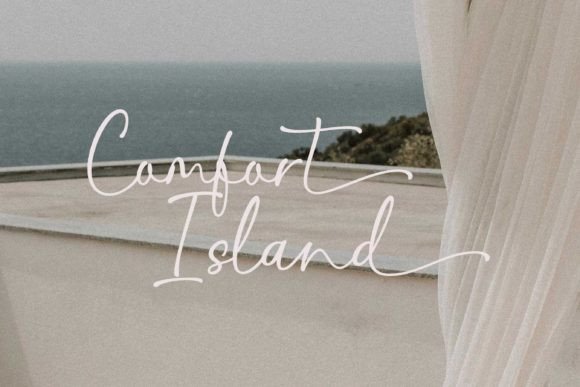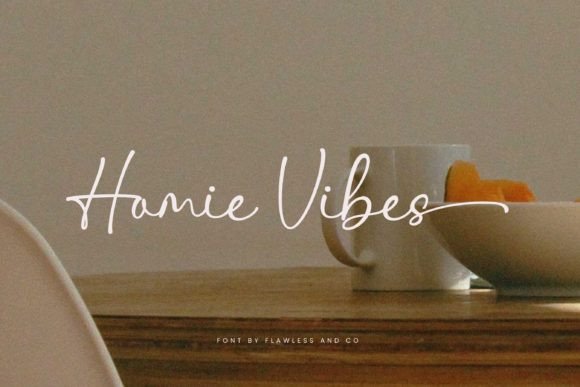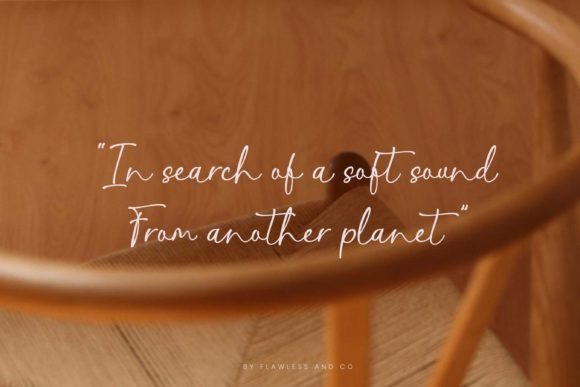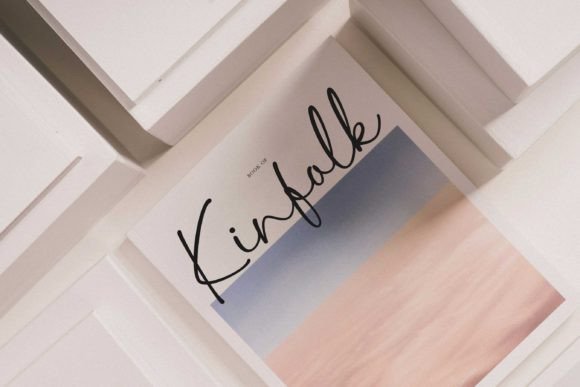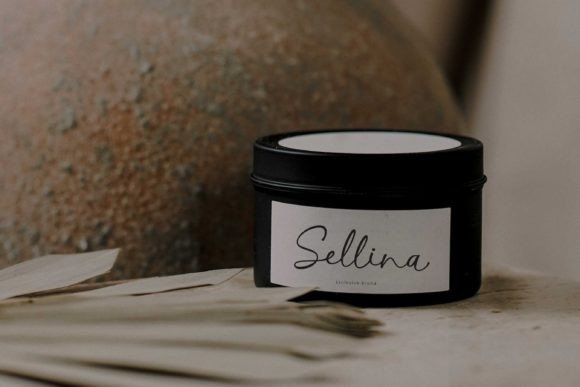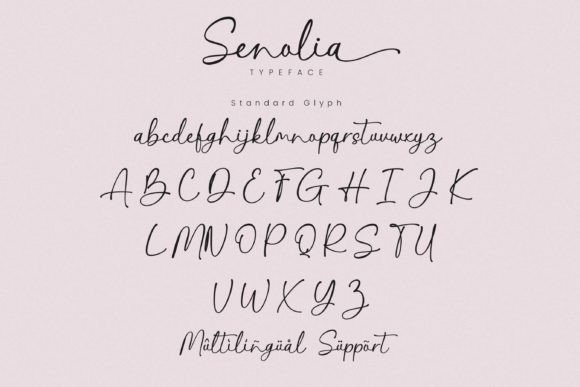
Introduction to Senolia Font
As a designer, there’s nothing quite like the thrill of discovering a new font that sparks creativity and inspires your next project. For me, that moment came when I stumbled upon the exquisite Senolia Font, a stunning calligraphy script that has since become a trusted design resource.
Whether you’re working on a high-end wedding invitation, a luxury branding project, or a creative endeavor that demands elegance and sophistication, Senolia Font is the perfect choice. Its intricate details and precise strokes evoke the artistry of handwritten elegance, making it a valuable asset for any designer looking to elevate their work.
Key Features of Senolia Font
- High-quality typography with a wide range of glyphs and characters, making it ideal for creative projects.
- Features a transparent background, allowing for seamless integration with any design or creative project.
- Includes a comprehensive character set, with over 2000 glyphs, supporting multiple languages and scripts.
- Designed to be highly legible at various resolutions, from 72 dpi to 300 dpi, making it suitable for both digital and print projects.
- Available in multiple font sizes, ranging from 8pt to 72pt, providing flexibility for various design applications.
Honest Review: Senolia Font
As a designer, I’m always on the lookout for high-quality design resources to elevate my creative projects. Recently, I had the chance to try out the Senolia Font, and I’m excited to share my honest review with you.
- ✨ Beautiful, elegant design: The Senolia Font boasts a sleek, modern aesthetic that’s perfect for any creative project.
- ✨ High-quality typography: The font’s crisp, clear lines and precise letterforms make it a joy to work with.
- ⚠️ Limited character set: While the font is beautiful, it’s only available in a limited character set, which may not be ideal for longer texts.
- ⚠️ No transparent background option: As a designer, I often work with transparent backgrounds, but unfortunately, the Senolia Font doesn’t offer this option.
Overall, I think the Senolia Font is a solid addition to any designer’s toolkit. While it may have some limitations, its high-quality design and elegant aesthetic make it a great choice for creative projects. If you’re looking for a beautiful, free font, I’d definitely recommend giving it a try.
Getting the Most Out of Senolia Font
To get the most out of Senolia Font, experiment with different font sizes, colors, and combinations. This versatile font is perfect for a wide range of creative projects, from logos to social media graphics.
Senolia Font is commonly used for logos, branding, social media graphics, and presentations. Its transparent background feature makes it ideal for creating visually appealing graphics with custom backgrounds.